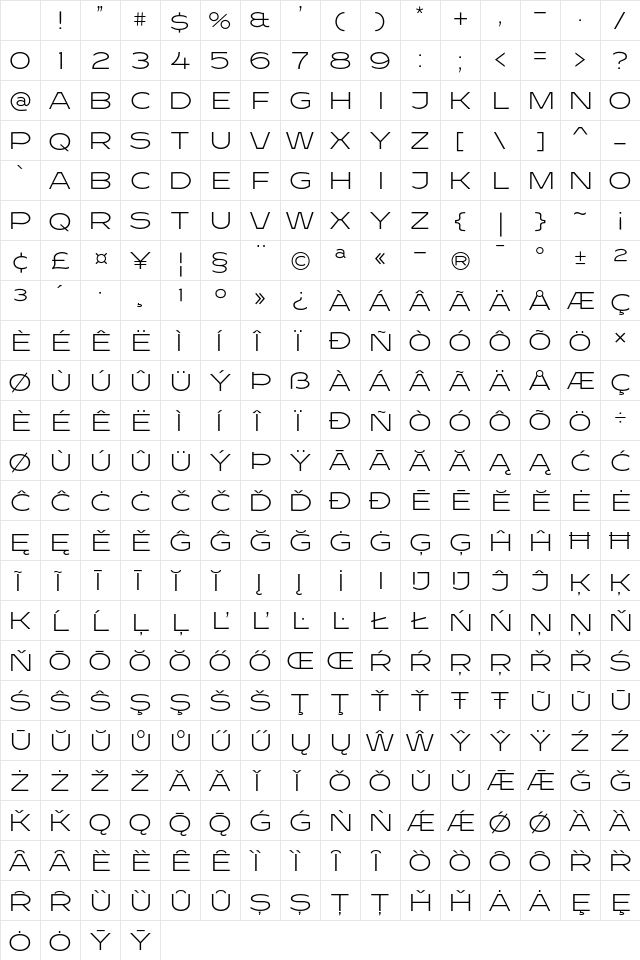
Complete Resotho Extralight glyph index. Displaying only characters natively supported by Resotho Extralight font.
Resotho Extralight is a composed and adaptable typeface that performs quietly and consistently across a wide range of design contexts. Its slender proportions lend an understated elegance to any composition.